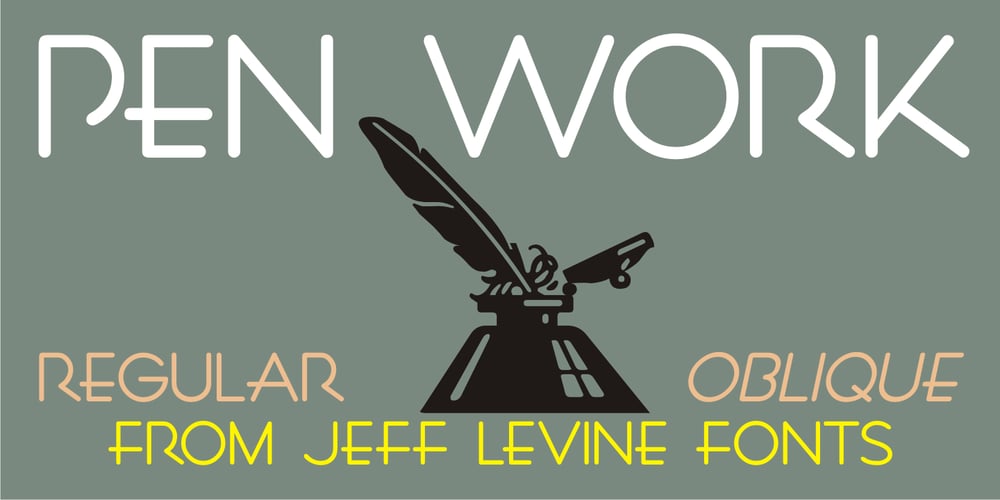
Pen Work JNL
Pen Work JNL font
Pen Work JNL Font Family was designed by Jeff Levine and published by Jeff Levine. Pen Work JNL contains 2 styles and family package options. The 1938 sheet music for “(The Dwarves Marching Song) Heigh-Ho” from Walt Disney’s “Snow White” had the part of the title in parenthesis hand lettered with a round nib ink pen. This lettering became the inspiration for Pen Work JNL, and is available in both regular and oblique versions.